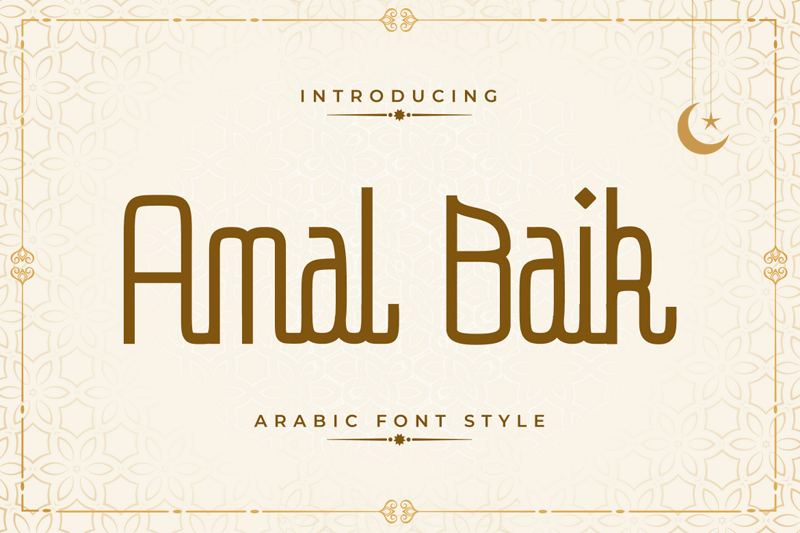
| Font name: | Amal Baik |
| Categories | Foreign look, Arabic |
| Author: | Type Factory |
| Note by Type Factory | |
Amal Baik is an modern display font with an Arabian look. This font particularly for those not native to Arabic languages. Amal Baik try to bring the religious feel to your design or typography. The font suits creative titling on both web and print, perfect for scroll text. Well balanced letters make for readable blocks of copy or headings. Full Version Download Here : https://typefactory.co/product/amal-baik-arabic-font-style/ https://www.creativefabrica.com/product/amal-baik/ref/501262/ |